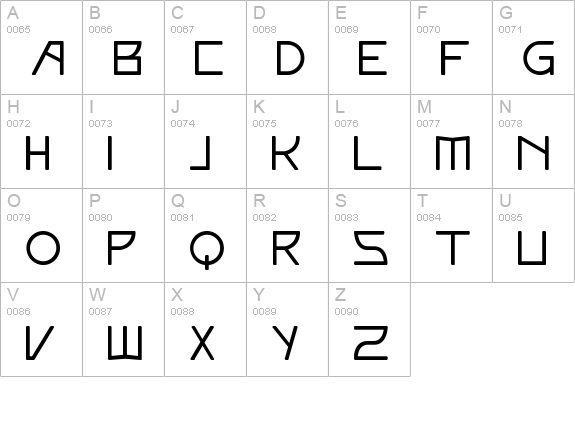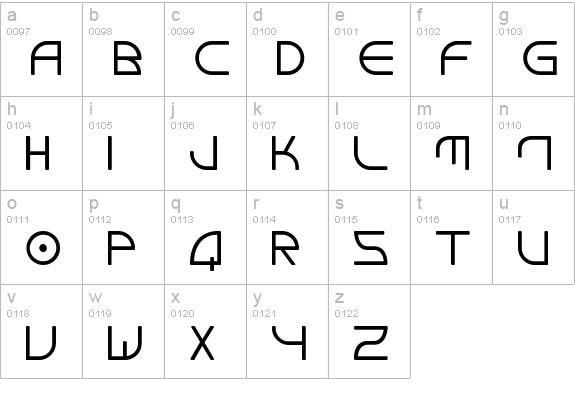
Elektora Font Details
Introducing Elektora font, a modern and sleek typeface that perfectly blends elegance with a touch of sophistication. With its clean lines and sharp edges, Elektora is ideal for creating eye-catching designs that demand attention. This versatile font is suitable for a wide range of projects, from branding to editorial design, making it a must-have addition to any designer's toolkit. What sets Elektora font apart is not just its striking aesthetics, but also its accessibility. Designed with versatility in mind, Elektora is available for free download at FontsMarket.com, ensuring that designers of all levels can easily incorporate this stunning typeface into their work. Whether you're working on a logo, website, or print materials, Elektora offers the perfect balance of style and functionality to elevate your designs to the next level. Don't miss out on the opportunity to enhance your projects with Elektora font today!